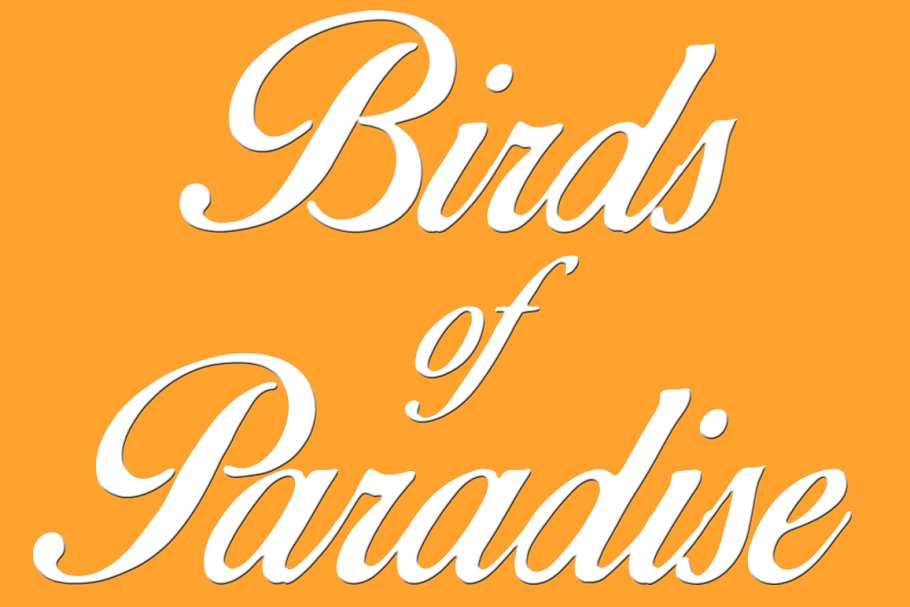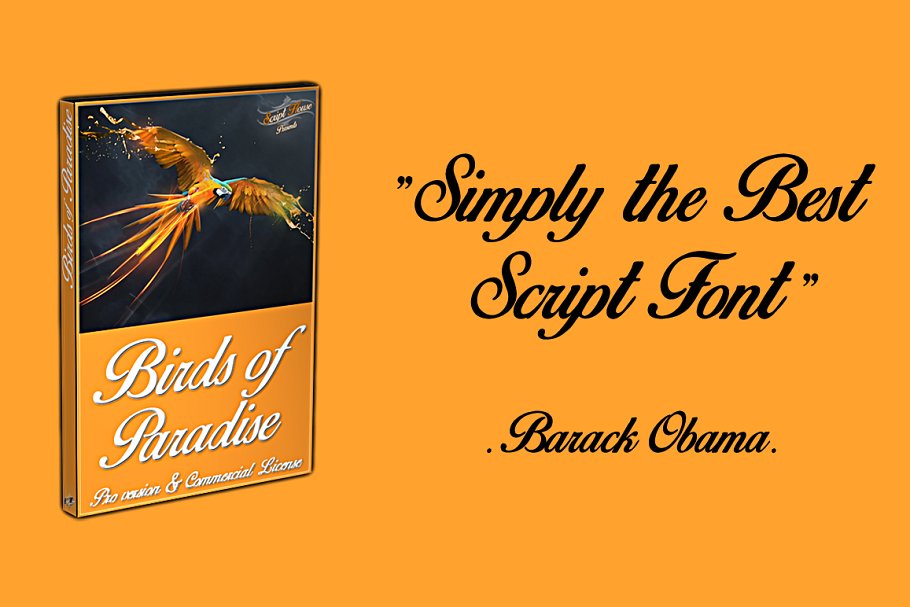
About the Birds of Paradise ©
Birds of Paradise © is a revival of a font made by Al Elliot in 1975, You can test the font before buying it : http://www, dafont, com/fr/birds-of-paradise, fontTruly yours,Scripthouse